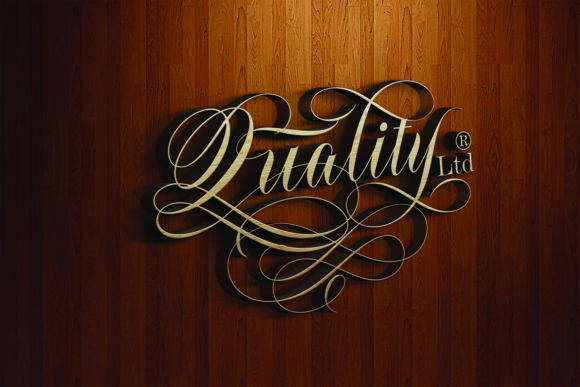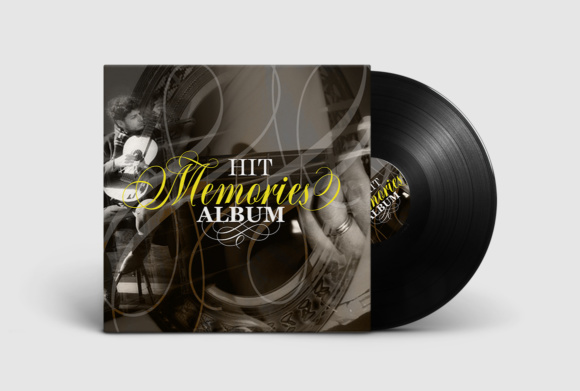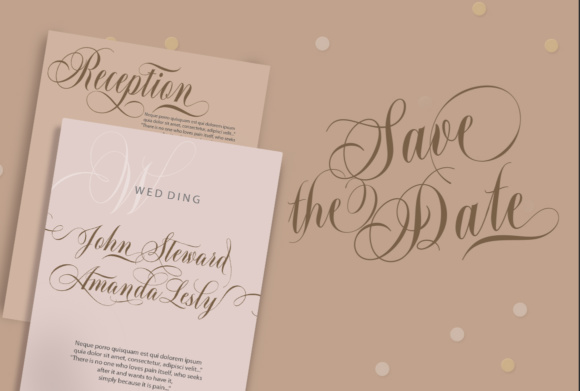
Daughter Script Font
About the Daughter Script Font
Step up your design game with Daughter Script Font, a font that exudes confidence and style. Daughter is a luxurious, handwritten calligraphy typeface. It is has an elegant feel which makes it perfect for logos, quotes, invitations, signatures, and every other design that needs a feminine touch.
Daughter Script’s elegant, flowing forms are ideal for projects requiring a touch of refined femininity. It excels in logos, wedding invitations, and short, impactful quotes where its delicate strokes create a sense of sophistication. However, its ornate nature makes it unsuitable for body text or UI elements; the intricate details would be difficult to read at smaller sizes.
Pair Daughter Script with a clean sans-serif like Montserrat for a modern contrast, or a classic serif like Garamond for a more timeless feel. A geometric sans-serif like Futura could provide a striking juxtaposition, highlighting Daughter Script’s organic quality. Avoid pairing it with other script fonts, as this risks creating visual clutter.
The overall personality of Daughter Script is undeniably sophisticated and graceful. It’s best suited for brands associated with luxury, beauty, fashion, or events that emphasize romanticism and refinement.
Daughter Script Font Usage Examples
Daughter Script Font Example